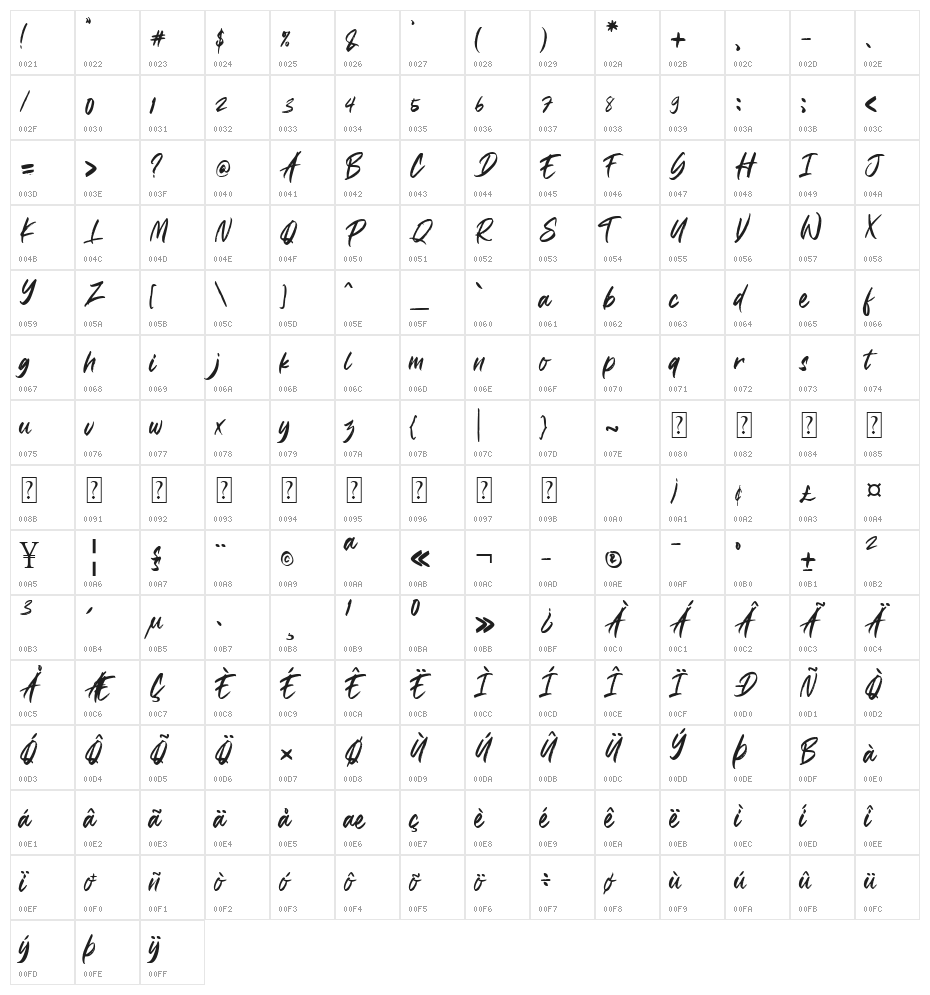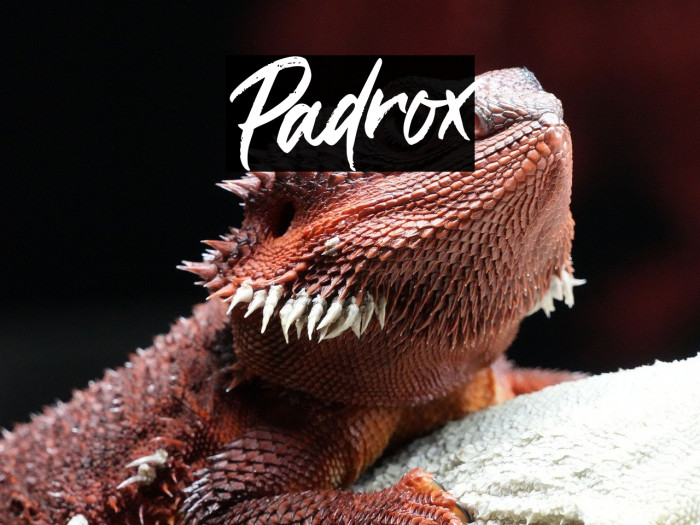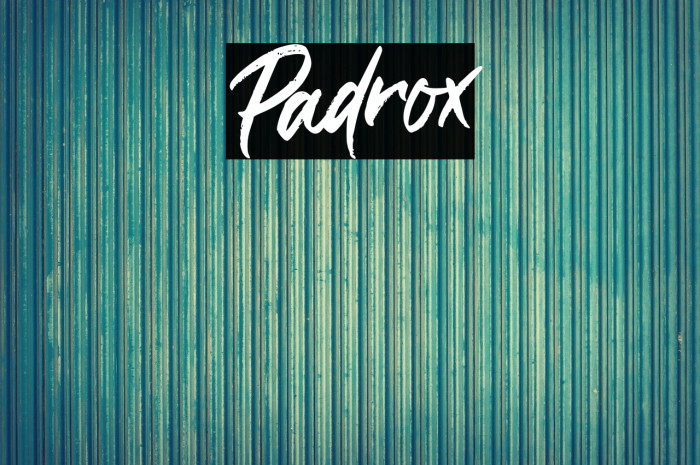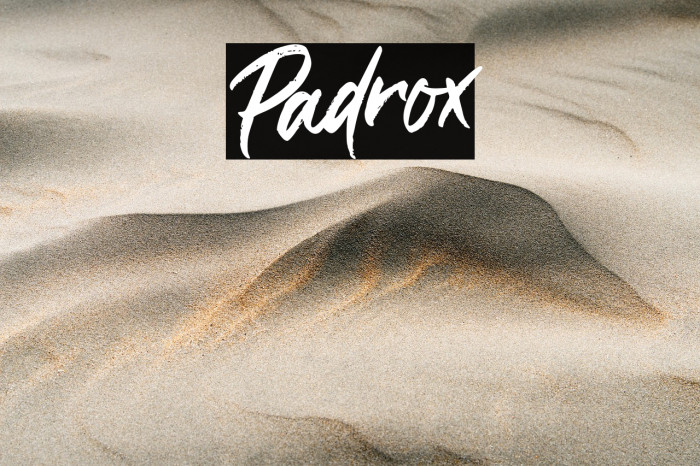
Padrox Font
Padrox Description
This font features a bold and expressive handwritten style with dynamic strokes and a brush-like texture. The letters are slightly slanted, giving a sense of movement and energy. The uppercase characters are bold and prominent, while the lowercase letters maintain a consistent flow. The numbers and special characters are crafted with the same energetic style, making them stand out. This font's unique and artistic appearance makes it suitable for creative projects that require a personal touch.
| Use Case | Logos, Headlines, Posters |
| Proposed Projects | Ideal for branding, posters, invitations, and any design requiring a personal, artistic touch. |